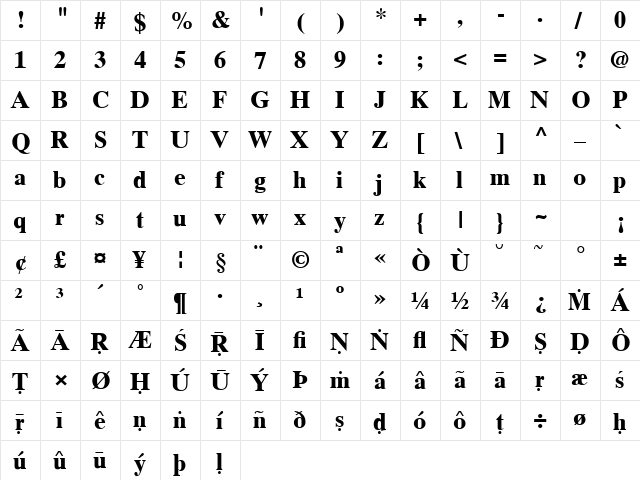
Tamal Bold
Design Context for Tamal Typeface
Tamal offers clean, dependable letterforms without strong stylistic allegiance, making it a practical choice for designers who need flexibility. The heavy weight commands attention and anchors typographic hierarchies.